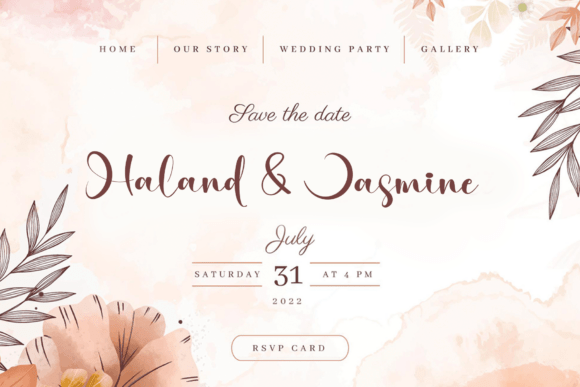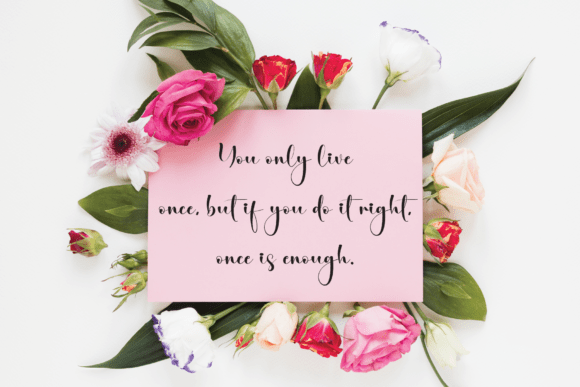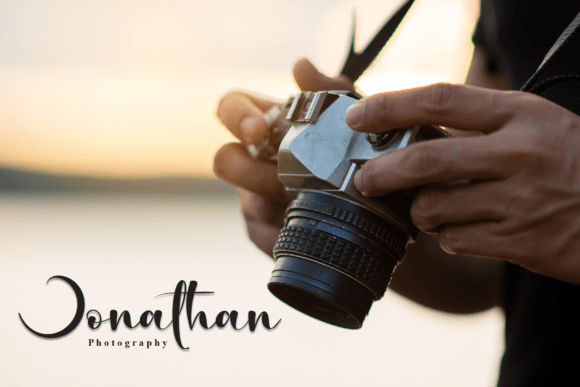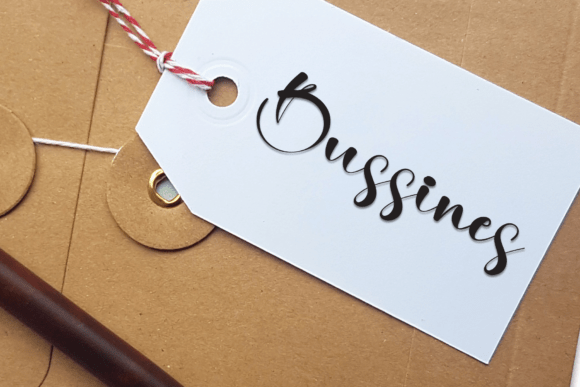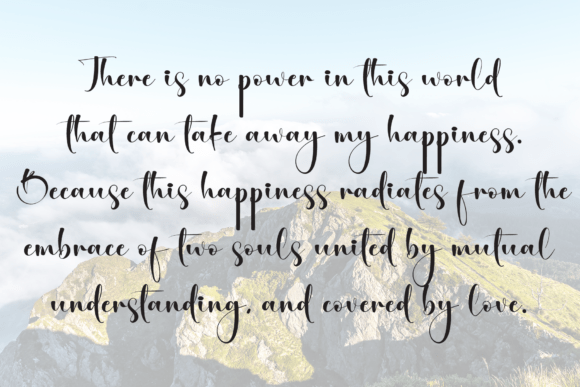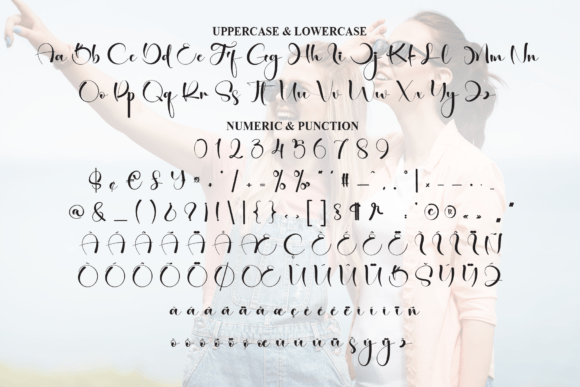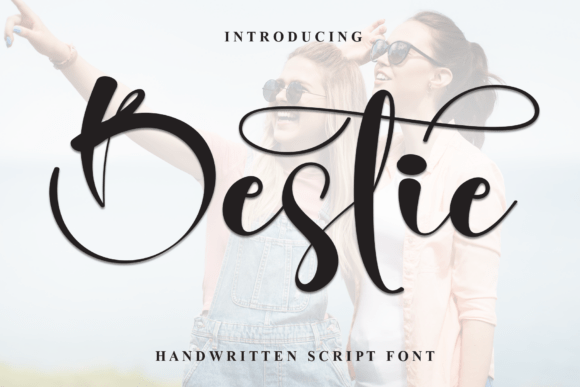
The Bestie Font: A Stylish Handwritten Script to Elevate Your Designs
I’ll never forget the time I was working on a wedding invitation project, and my client asked me to create a custom font that exuded elegance and charm. I spent hours scouring the internet for the perfect font, but nothing seemed quite right. That’s when I stumbled upon the Bestie font, and it instantly became my go-to. In this article, I’ll share my love for this beautiful font, its features, and how to make the most of it in your designs.
An Honest Review of Bestie Font
What I Love About Bestie Font
- ✨ Elegant and charming handwritten script
- ✅ Fluid strokes and natural flow create a captivating look
- 💫 Perfect for adding a personal touch to invitations, branding, or social media
- 🎨 Brings a sense of warmth and creativity to any design
While Bestie font is an amazing addition to any design project, there are a few things to keep in mind:
- ⚠️ Some letters may not connect seamlessly, which can affect the overall flow
- 🤔 Limited kerning options, which may require manual adjustments
The Story Behind Bestie Font
Bestie font was created with the intention of bringing a touch of elegance and charm to designs. The designer wanted to create a font that felt personal and approachable, yet sophisticated and refined. The result is a beautiful handwritten script font that’s perfect for a wide range of design projects.
Q: What type of projects is Bestie font best suited for?
A: Bestie font is perfect for projects that require a personal touch, such as invitations, branding, social media graphics, and more.
Q: Is Bestie font suitable for body text?
A: While Bestie font is beautiful, it’s best suited for headlines and titles. For body text, you may want to choose a more legible font.